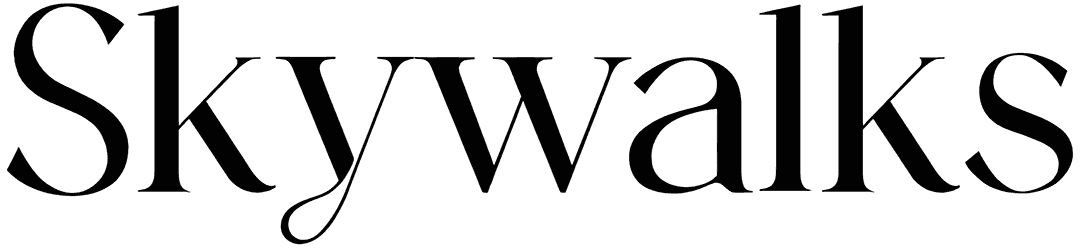
Skywalks Font
There’s always a reason to go back to using Skywalks as your business font, and that’s its magnificent style. You can just picture it on your business cards for all kinds of clients, from interior designers, photographers, and hair stylists to something more formal like architects and art schools.
Sure, there are plenty of other sources of classic charm for your text, but it’s only this awesome serif font that can also bring along a touch of sophistication and innovation.